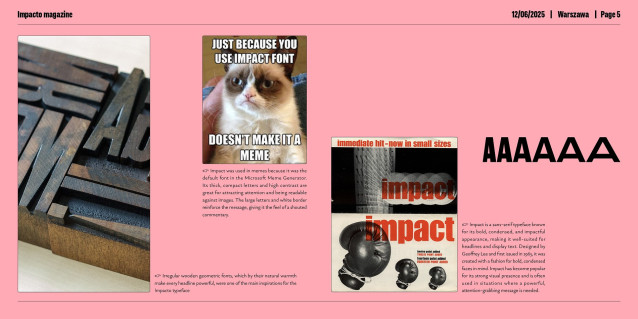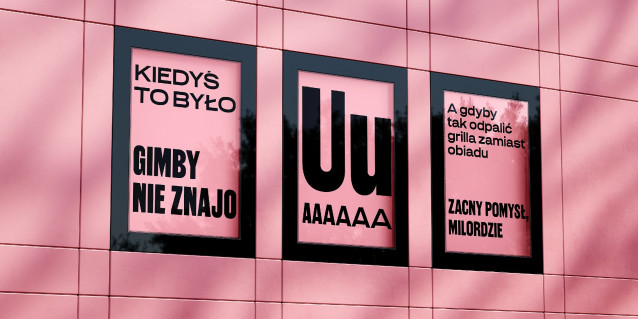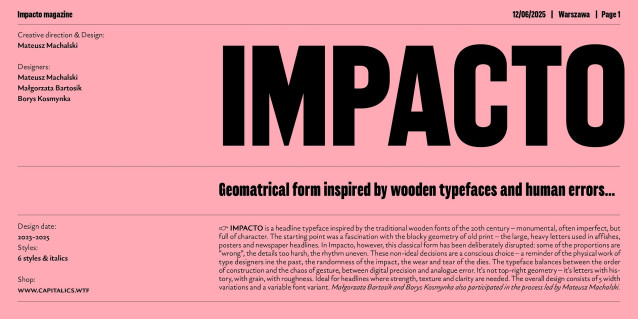
Impacto Font Family
Impacto Font Family is a headline typeface inspired by the traditional wooden fonts of the 20th century – monumental, often imperfect, but full of character. The starting point was a fascination with the blocky geometry of old print – the large, heavy letters used in affishes, posters and newspaper headlines. In Impacto, however, this classical form has been deliberately disrupted: some of the proportions are “wrong”, the details too harsh, the rhythm uneven. These non-ideal decisions are a conscious choice – a reminder of the physical work of type designers ine the past, the randomness of the impact, the wear and tear of the dies. The typeface balances between the order of construction and the chaos of gesture, between digital precision and analogue error. It’s not top-right geometry – it’s letters with history, with grain, with roughness. Ideal for headlines where strength, texture and clarity are needed. The overall design consists of 5 width variations and a variable font variant. Małgorzata Bartosik and Borys Kosmynka also participated in the process led by Mateusz Machalski.